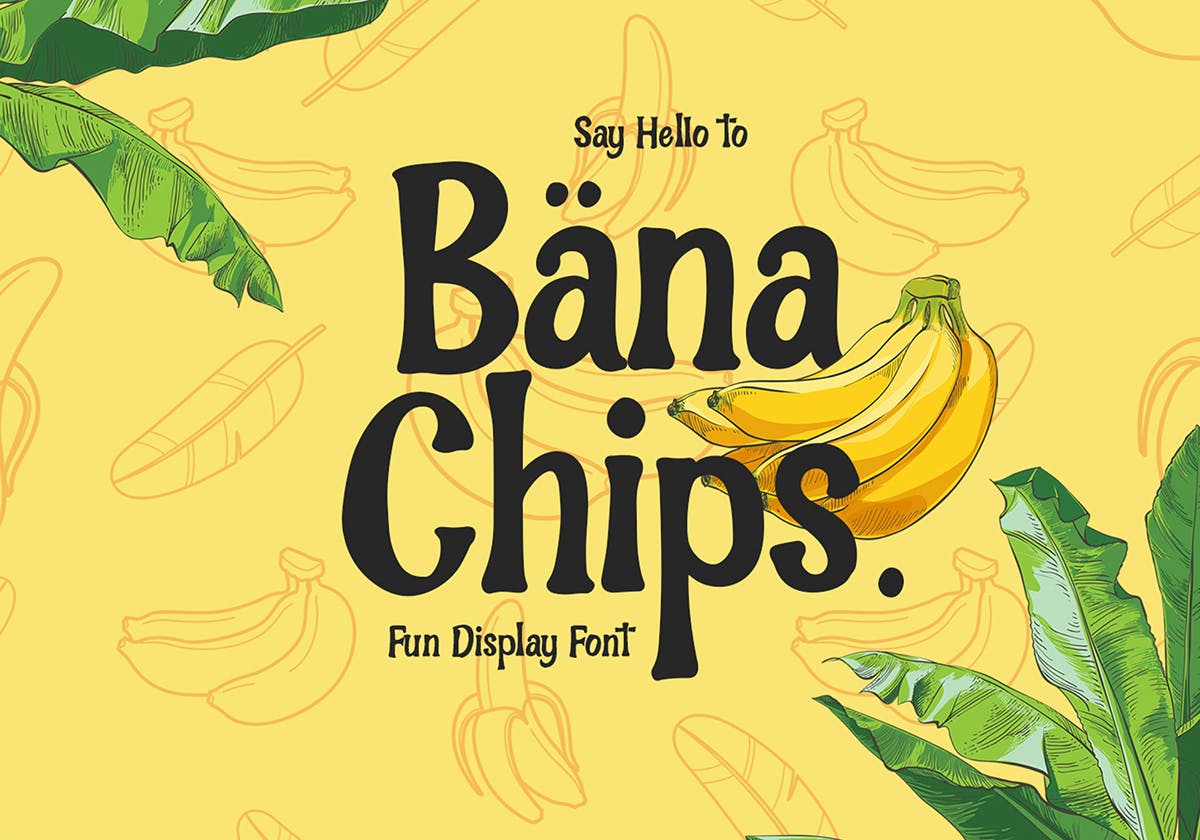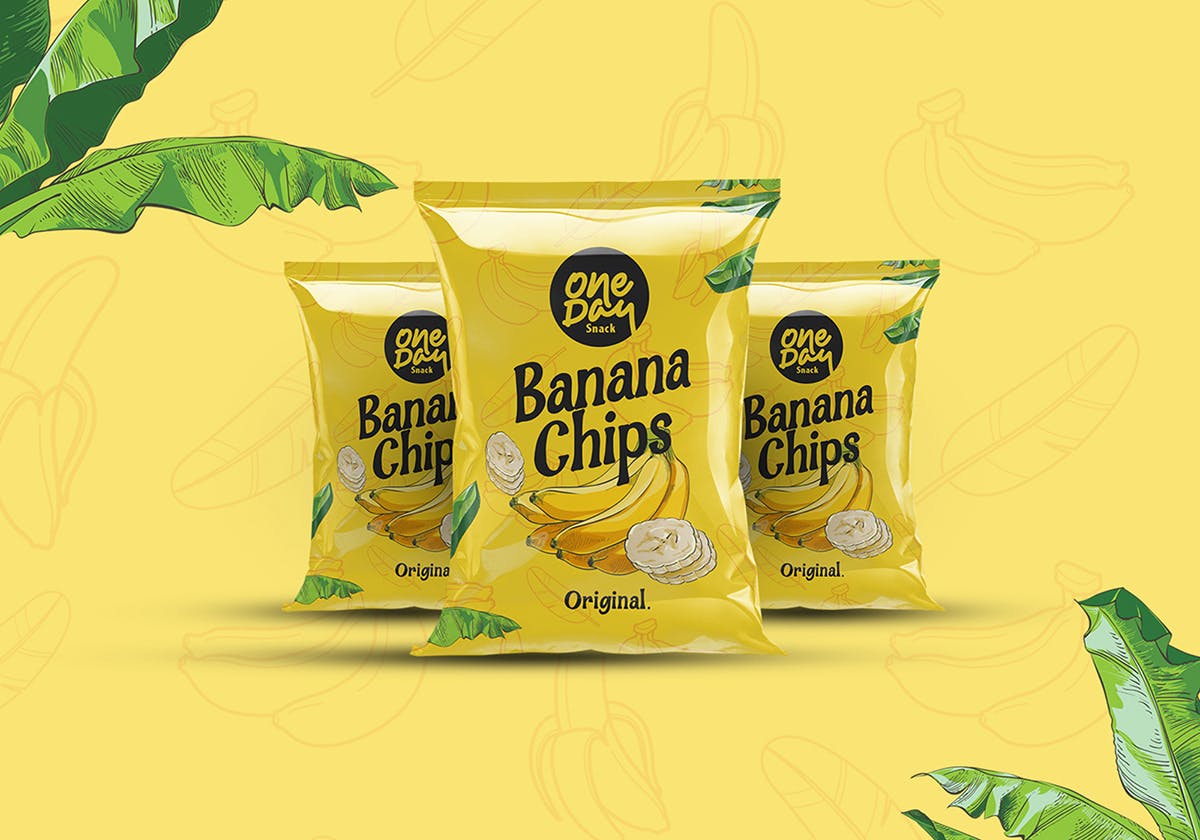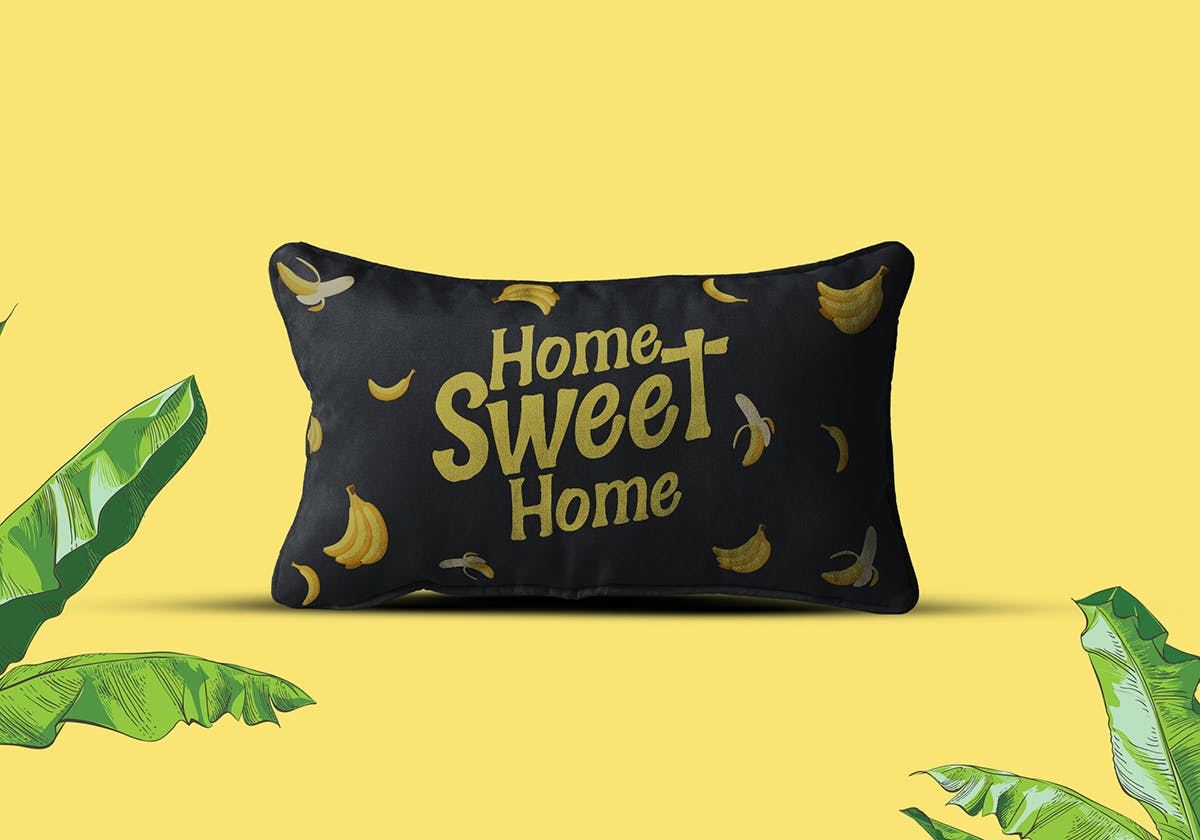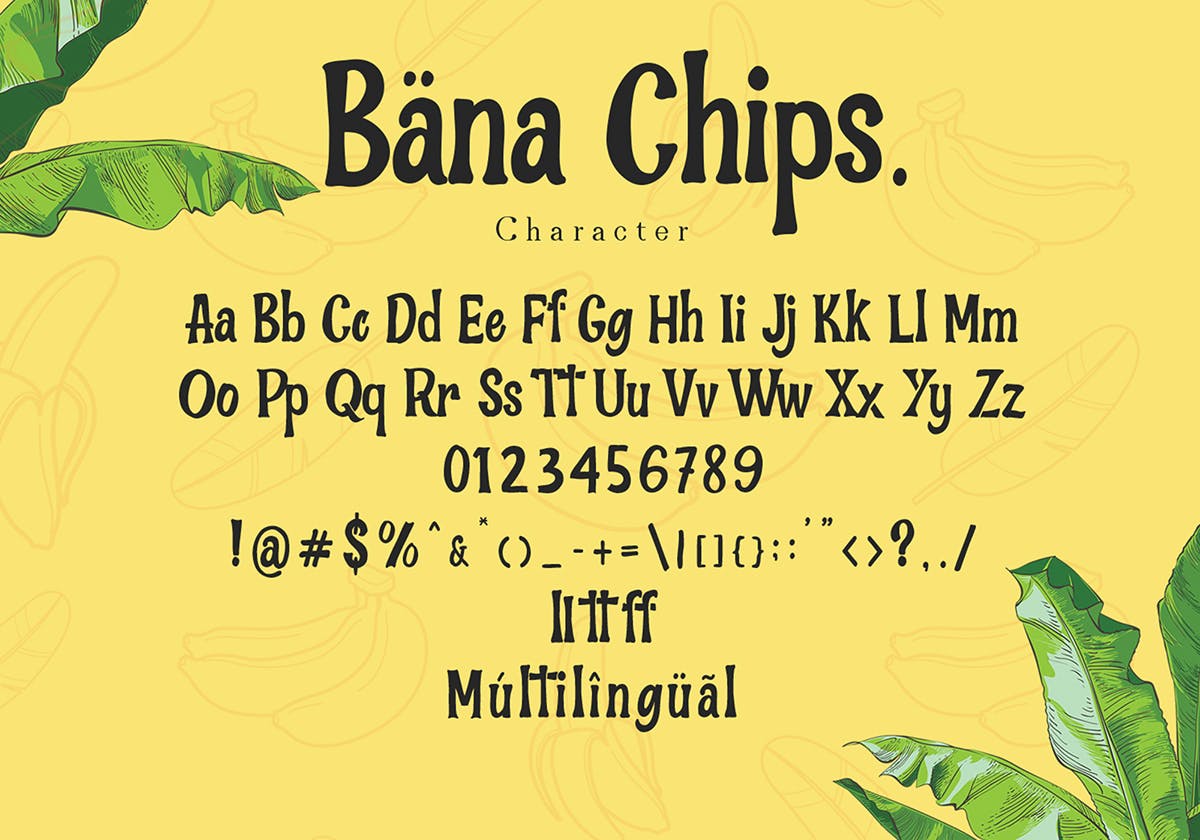
Free Demo Bana Chips Display Font
Free Demo Bana Chips Display Font is an awesome font that will match to your works. It is coming with a handwriting style that will make all your works look playful and sweet. This demo font is also available for a multilingual feature, presents with the TTF format file for this freebie that you can install on your devices. It isΒ is very good for your projects such as packaging, banners, gift cards, flyers, invitations, and more. So, it is available for a personal use license, but,Β  if you want to get more advantages, make sure you purchase the premium version.